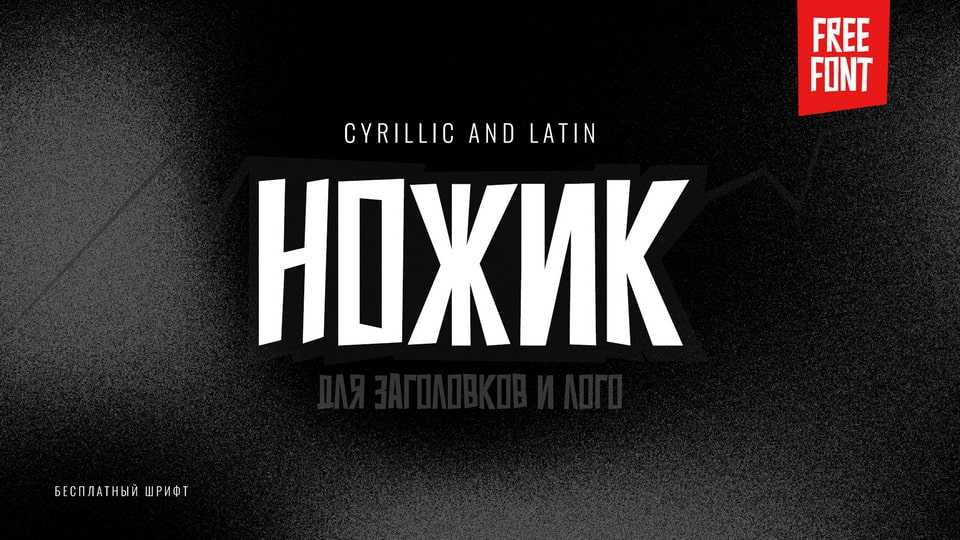
Download Nozhik font, a sharp, edgy and loud typeface, sharpened for posters, logos, and website headers. Nozhik font is a narrow, universal sans serif that has a bold character.
Designer: Ilya Designgsta